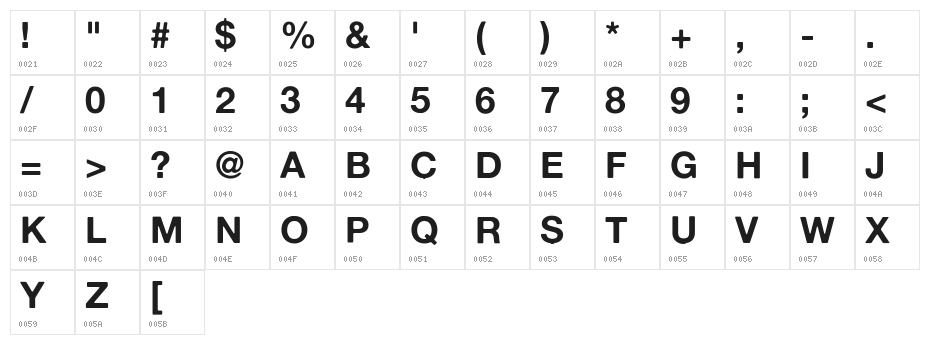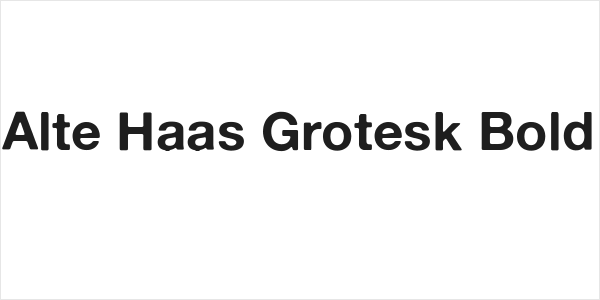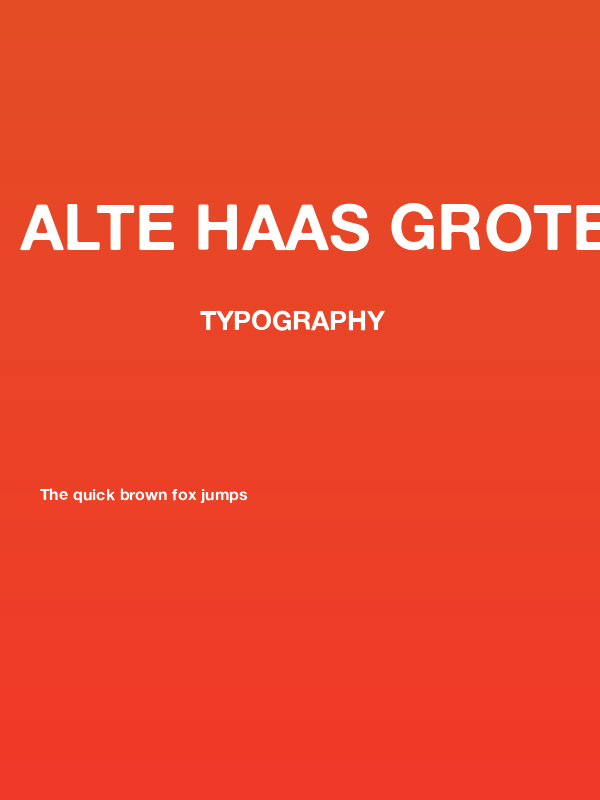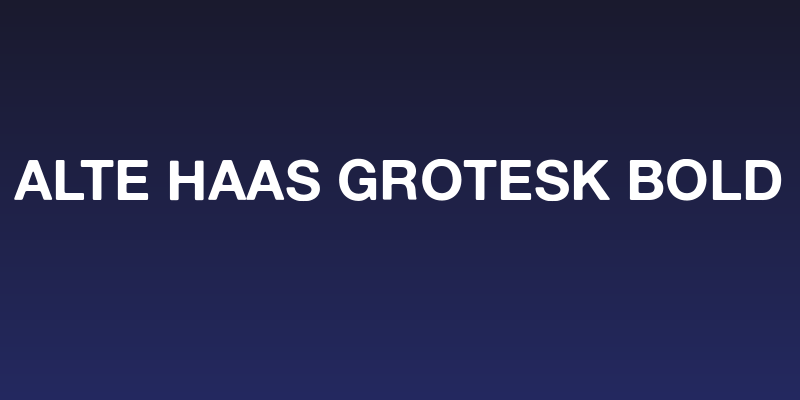
Alte Haas Grotesk Bold Font
Alte Haas Grotesk Bold Description
This font features a bold and clean sans-serif style, characterized by its strong geometric shapes and uniform stroke widths. The uppercase and lowercase letters maintain a consistent height and width, providing a balanced and harmonious appearance. The numerals are clear and easily distinguishable, making them suitable for various applications. Special characters are well-integrated, maintaining the overall aesthetic. This font's simplicity and clarity make it versatile for both digital and print media.
| Use Case | Headlines, Logos, Digital interfaces |
| Proposed Projects | Ideal for branding, advertising, headlines, and digital interfaces where clarity and impact are essential. |